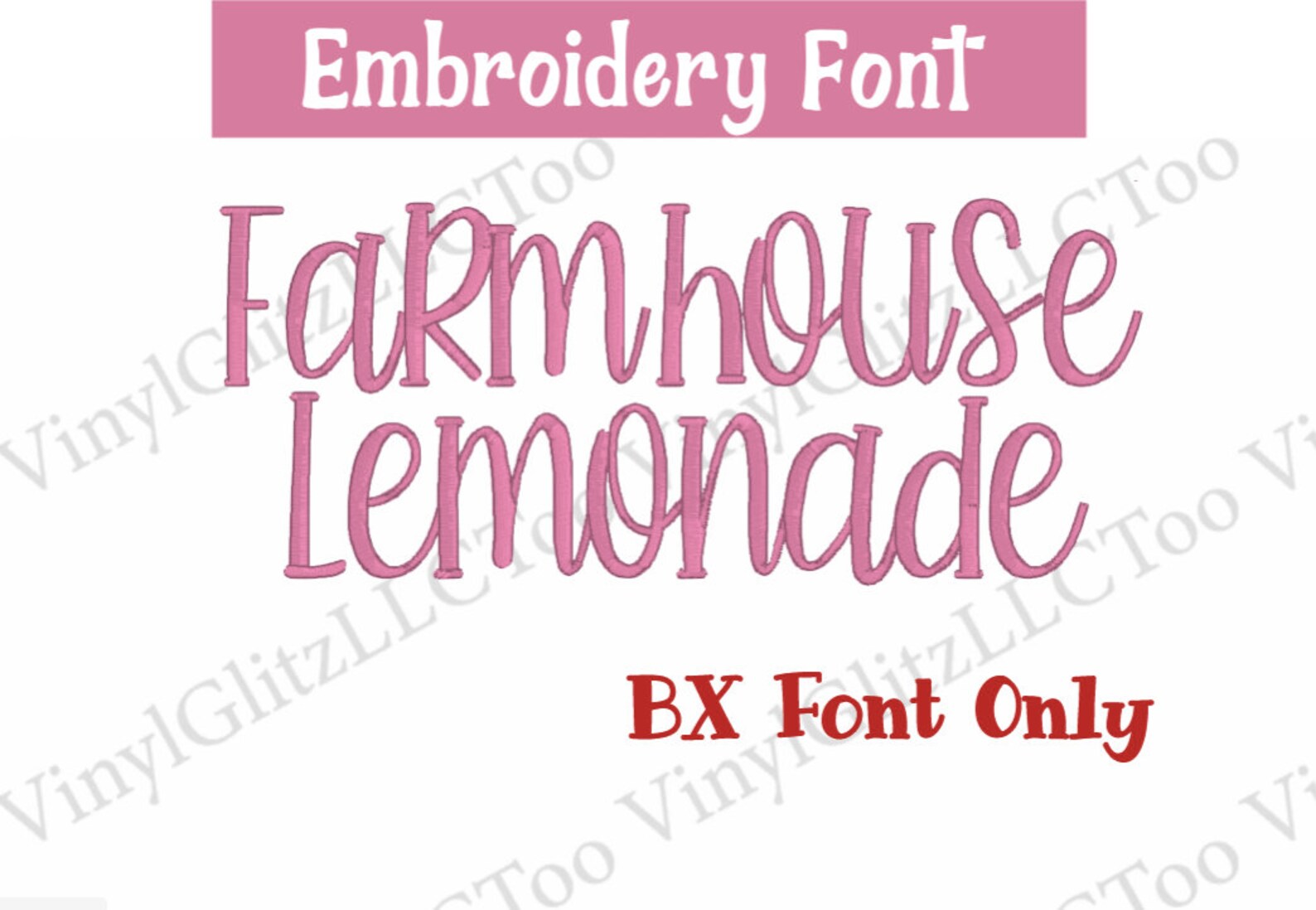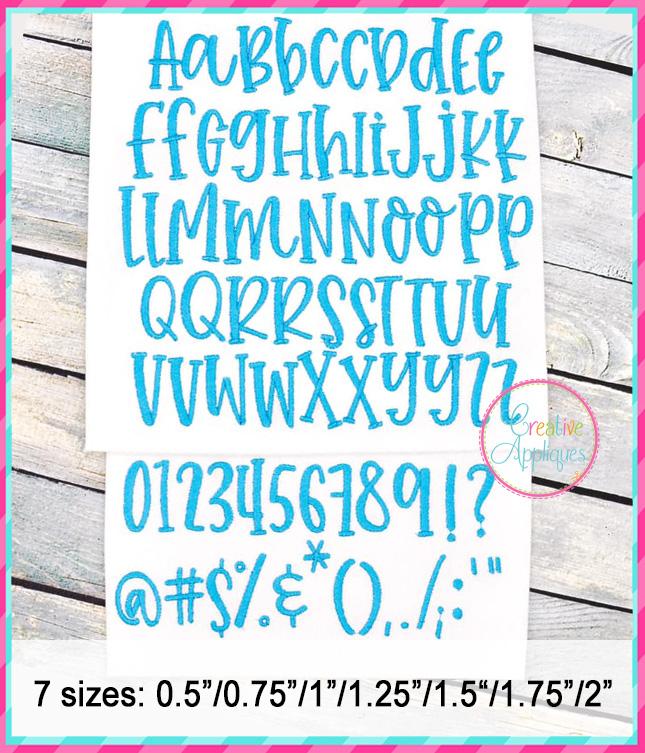
Farmhouse Lemonade Font Free Download . Download and install the lemonade farmhouse font by william jhordy. Our free selection of fonts will give you. Farmhouse lemonade font is a fun, bouncy handwritten font bursting with handwritten charm and personality! The lemonade farmhouse font has been downloaded 597 times. These 25+ free farmhouse font downloads are perfect for all of your farmhouse projects and more. Here are the first 80 fonts (75 commercial and 5 free fonts) matching the image you uploaded. This post also includes installation instructions and font pairing ideas. Browse our collection of fonts similar to ss farmhouse lemonade otf. What fonts are similar to ss farmhouse lemonade otf (400)? Lemonade farmhouse display font is a sweet and friendly handwritten display font. Cute and fun, this font is ideal for writing wedding invitations, cards, or any other design that might need a playful touch!
The lemonade farmhouse font has been downloaded 597 times. Lemonade farmhouse display font is a sweet and friendly handwritten display font. Cute and fun, this font is ideal for writing wedding invitations, cards, or any other design that might need a playful touch! Download and install the lemonade farmhouse font by william jhordy. Farmhouse lemonade font is a fun, bouncy handwritten font bursting with handwritten charm and personality! This post also includes installation instructions and font pairing ideas. Here are the first 80 fonts (75 commercial and 5 free fonts) matching the image you uploaded. These 25+ free farmhouse font downloads are perfect for all of your farmhouse projects and more. Our free selection of fonts will give you. What fonts are similar to ss farmhouse lemonade otf (400)?
Farmhouse Lemonade Font Free Download Farmhouse lemonade font is a fun, bouncy handwritten font bursting with handwritten charm and personality! What fonts are similar to ss farmhouse lemonade otf (400)? Cute and fun, this font is ideal for writing wedding invitations, cards, or any other design that might need a playful touch! Here are the first 80 fonts (75 commercial and 5 free fonts) matching the image you uploaded. Lemonade farmhouse display font is a sweet and friendly handwritten display font. The lemonade farmhouse font has been downloaded 597 times. Farmhouse lemonade font is a fun, bouncy handwritten font bursting with handwritten charm and personality! These 25+ free farmhouse font downloads are perfect for all of your farmhouse projects and more. Our free selection of fonts will give you. Download and install the lemonade farmhouse font by william jhordy. This post also includes installation instructions and font pairing ideas. Browse our collection of fonts similar to ss farmhouse lemonade otf.
Farmhouse Lemonade Font Free Download The lemonade farmhouse font has been downloaded 597 times. These 25+ free farmhouse font downloads are perfect for all of your farmhouse projects and more. Download and install the lemonade farmhouse font by william jhordy. Browse our collection of fonts similar to ss farmhouse lemonade otf. Here are the first 80 fonts (75 commercial and 5 free fonts) matching the. Farmhouse Lemonade Font Free Download.
Farmhouse Lemonade Font Free Download The lemonade farmhouse font has been downloaded 597 times. This post also includes installation instructions and font pairing ideas. Our free selection of fonts will give you. Lemonade farmhouse display font is a sweet and friendly handwritten display font. Here are the first 80 fonts (75 commercial and 5 free fonts) matching the image you uploaded. Cute and fun, this. Farmhouse Lemonade Font Free Download.
Farmhouse Lemonade Font Free Download Farmhouse Style Fonts Are Perfect For Making Wood Signs Farmhouse Lemonade Font Free Download The lemonade farmhouse font has been downloaded 597 times. Download and install the lemonade farmhouse font by william jhordy. Here are the first 80 fonts (75 commercial and 5 free fonts) matching the image you uploaded. Cute and fun, this font is ideal for writing wedding invitations, cards, or any other design that might need a playful touch! What fonts. Farmhouse Lemonade Font Free Download.
Farmhouse Lemonade Font Etsy Farmhouse Lemonade Font Free Download The lemonade farmhouse font has been downloaded 597 times. These 25+ free farmhouse font downloads are perfect for all of your farmhouse projects and more. Browse our collection of fonts similar to ss farmhouse lemonade otf. Our free selection of fonts will give you. Farmhouse lemonade font is a fun, bouncy handwritten font bursting with handwritten charm and personality! This. Farmhouse Lemonade Font Free Download.
Farmhouse font, Lemonade, Digital Font, Download for Commerc Inspire Uplift Farmhouse Lemonade Font Free Download Here are the first 80 fonts (75 commercial and 5 free fonts) matching the image you uploaded. Lemonade farmhouse display font is a sweet and friendly handwritten display font. These 25+ free farmhouse font downloads are perfect for all of your farmhouse projects and more. The lemonade farmhouse font has been downloaded 597 times. Cute and fun, this font is. Farmhouse Lemonade Font Free Download.
Farmhouse Lemonade Font Free Download These 25+ free farmhouse font downloads are perfect for all of your farmhouse projects and more. Farmhouse lemonade font is a fun, bouncy handwritten font bursting with handwritten charm and personality! Here are the first 80 fonts (75 commercial and 5 free fonts) matching the image you uploaded. What fonts are similar to ss farmhouse lemonade otf (400)? This post. Farmhouse Lemonade Font Free Download.
Farmhouse Lemonade Font Free Download Download and install the lemonade farmhouse font by william jhordy. The lemonade farmhouse font has been downloaded 597 times. Our free selection of fonts will give you. These 25+ free farmhouse font downloads are perfect for all of your farmhouse projects and more. Cute and fun, this font is ideal for writing wedding invitations, cards, or any other design that. Farmhouse Lemonade Font Free Download.
Farmhouse Lemonade Font, Large 11 Sizes! Products SWAK Embroidery Farmhouse Lemonade Font Free Download Our free selection of fonts will give you. Lemonade farmhouse display font is a sweet and friendly handwritten display font. Download and install the lemonade farmhouse font by william jhordy. Farmhouse lemonade font is a fun, bouncy handwritten font bursting with handwritten charm and personality! Here are the first 80 fonts (75 commercial and 5 free fonts) matching the image. Farmhouse Lemonade Font Free Download.